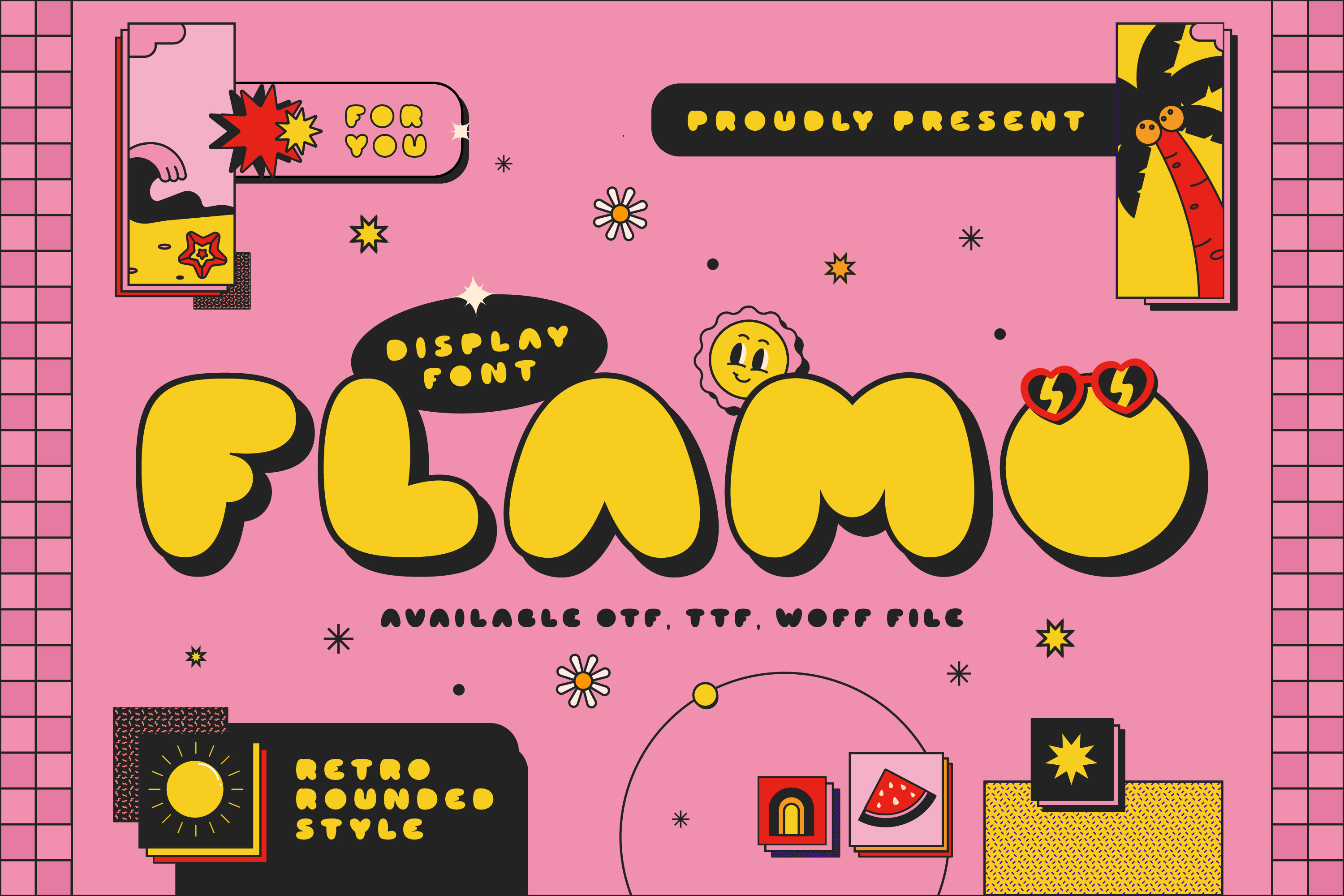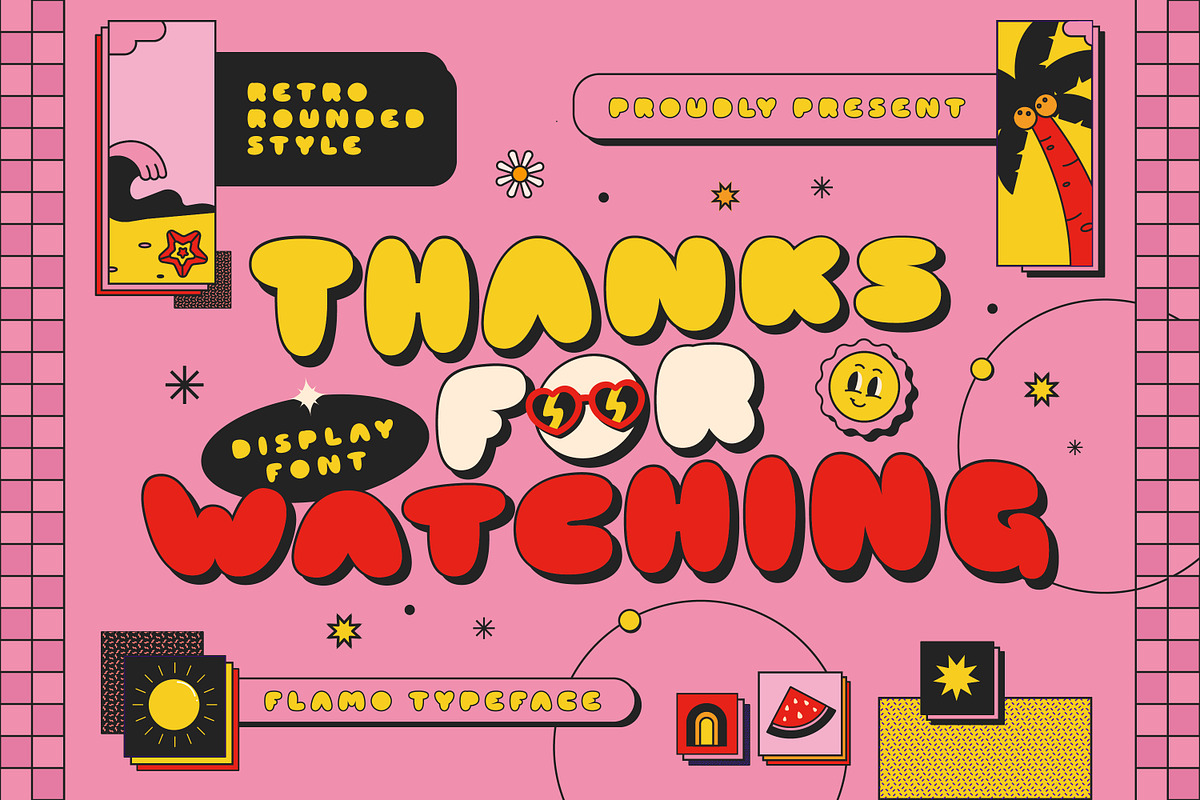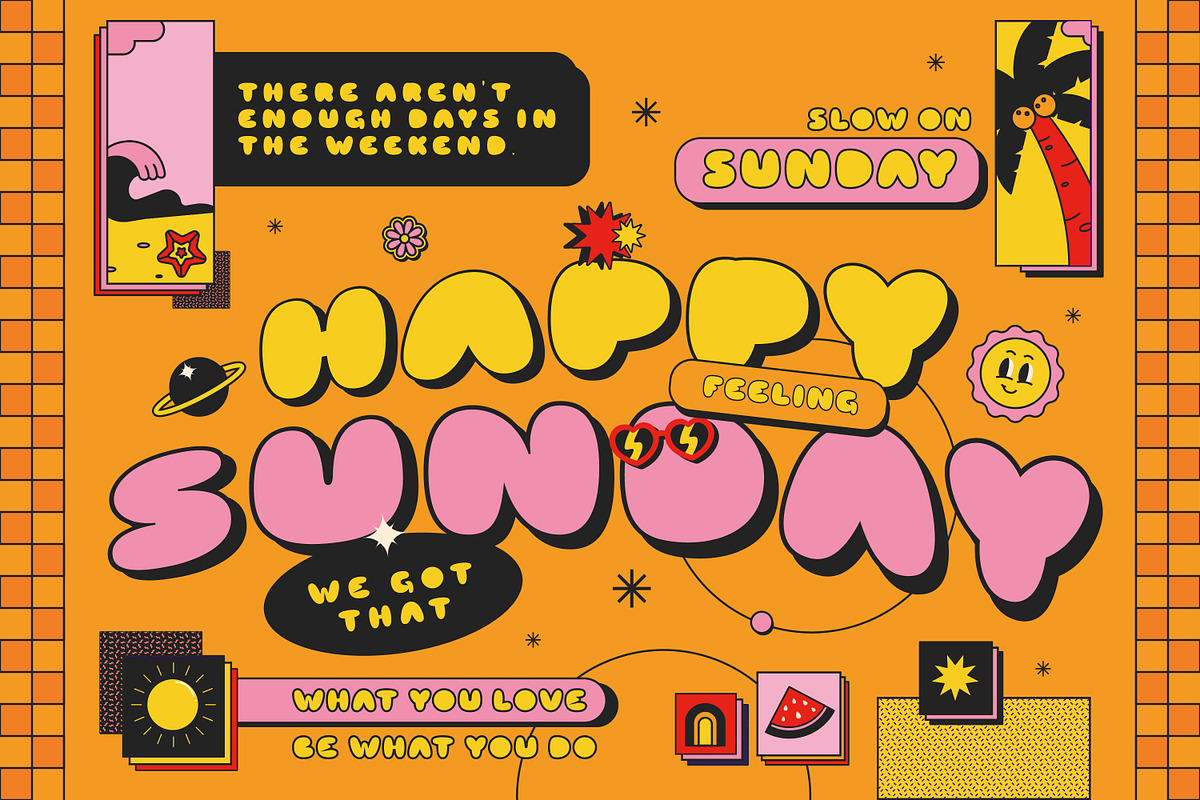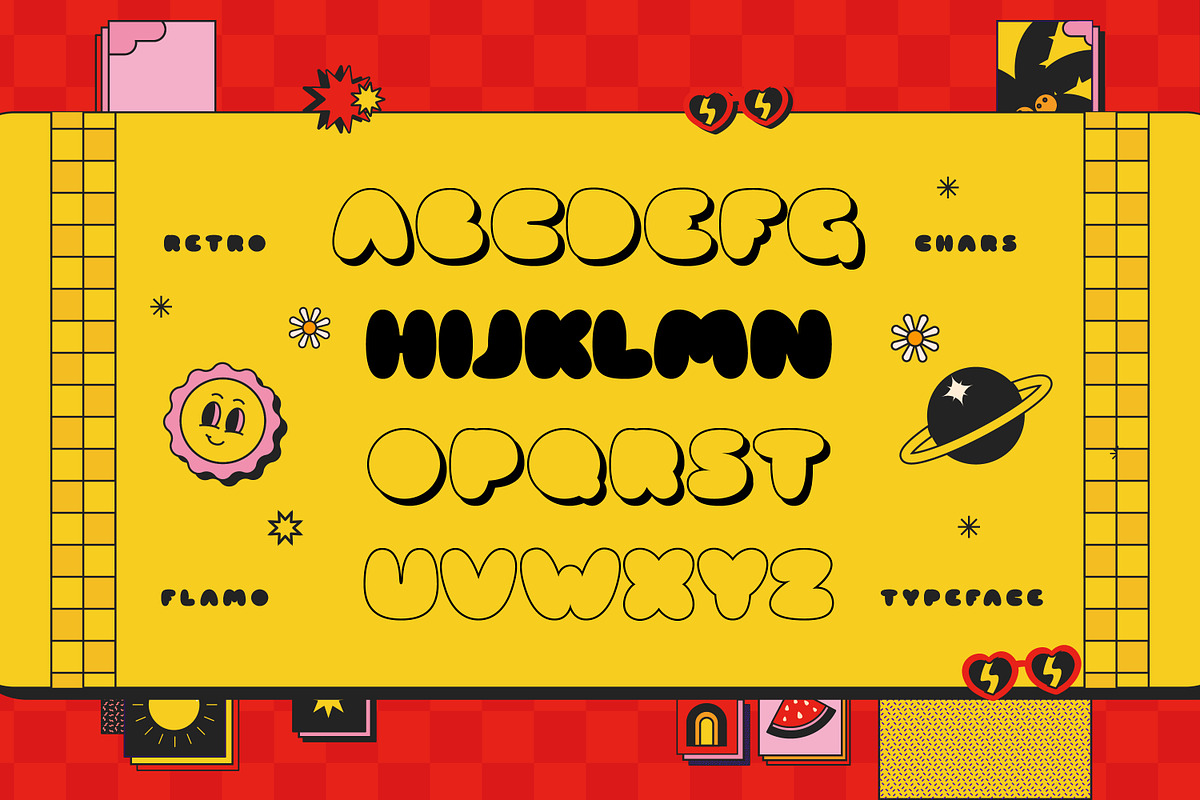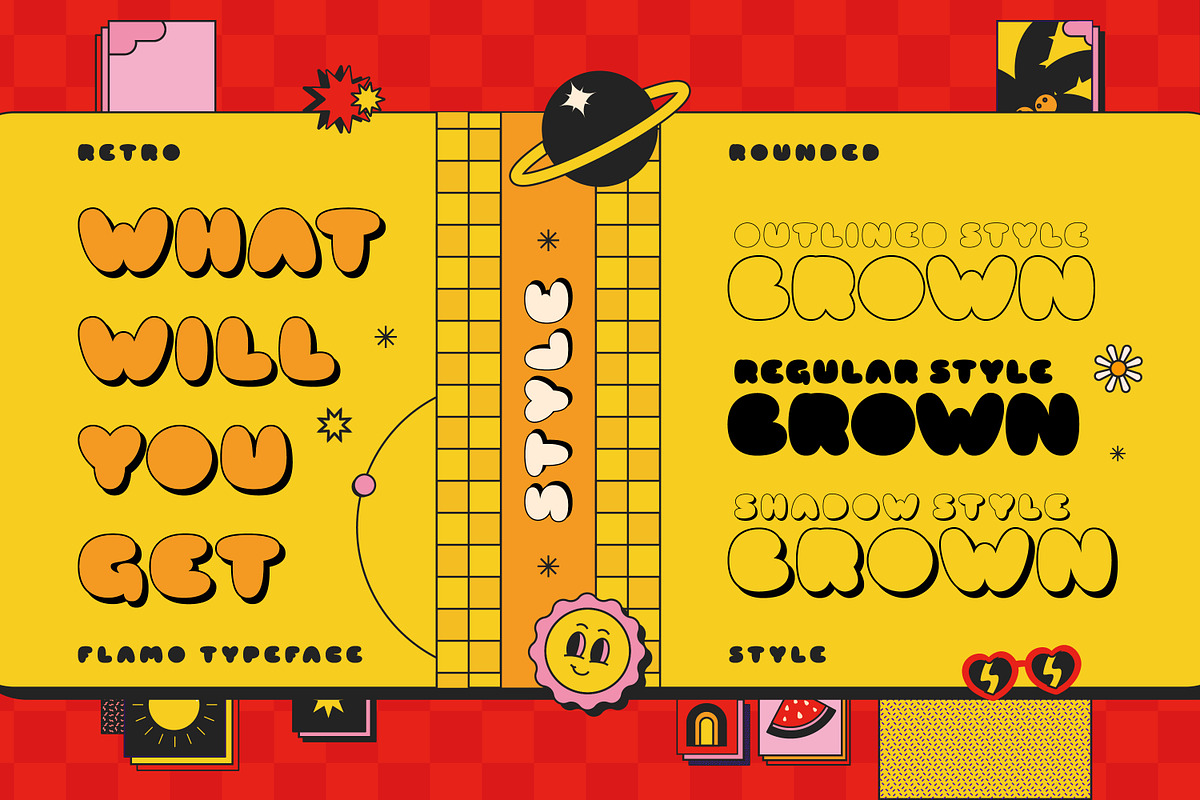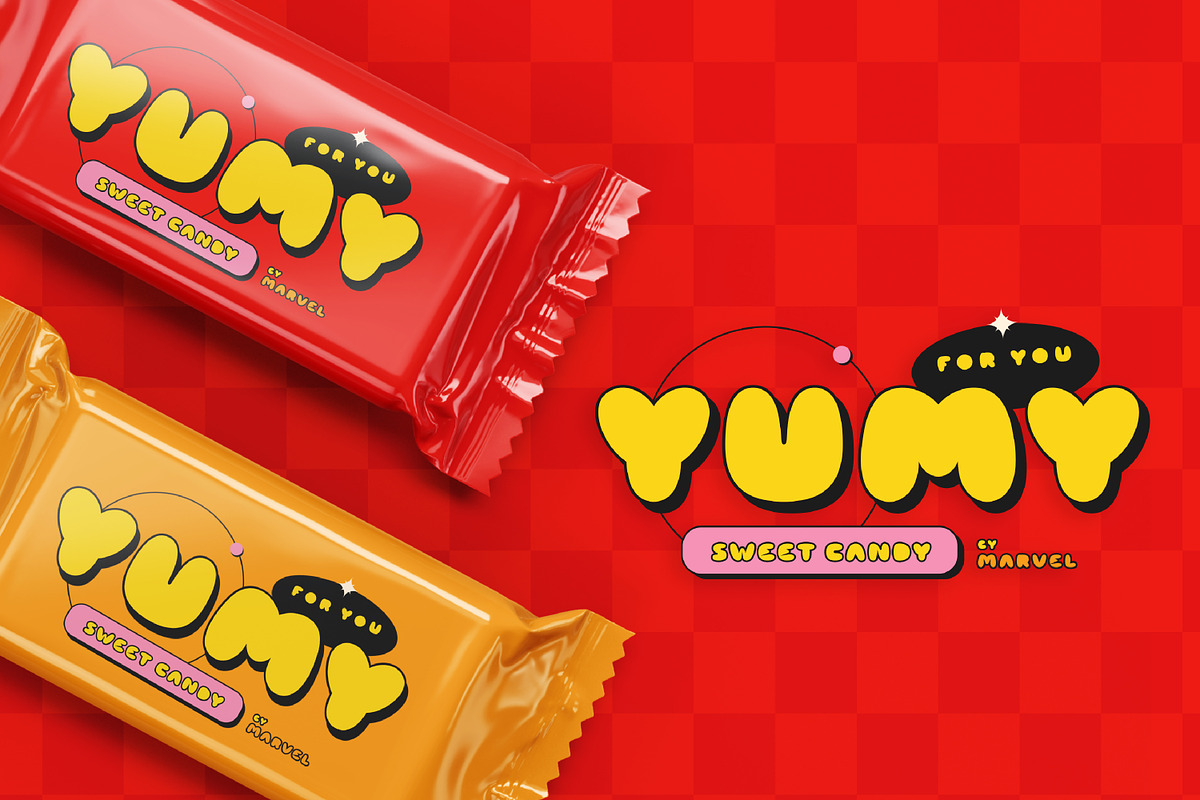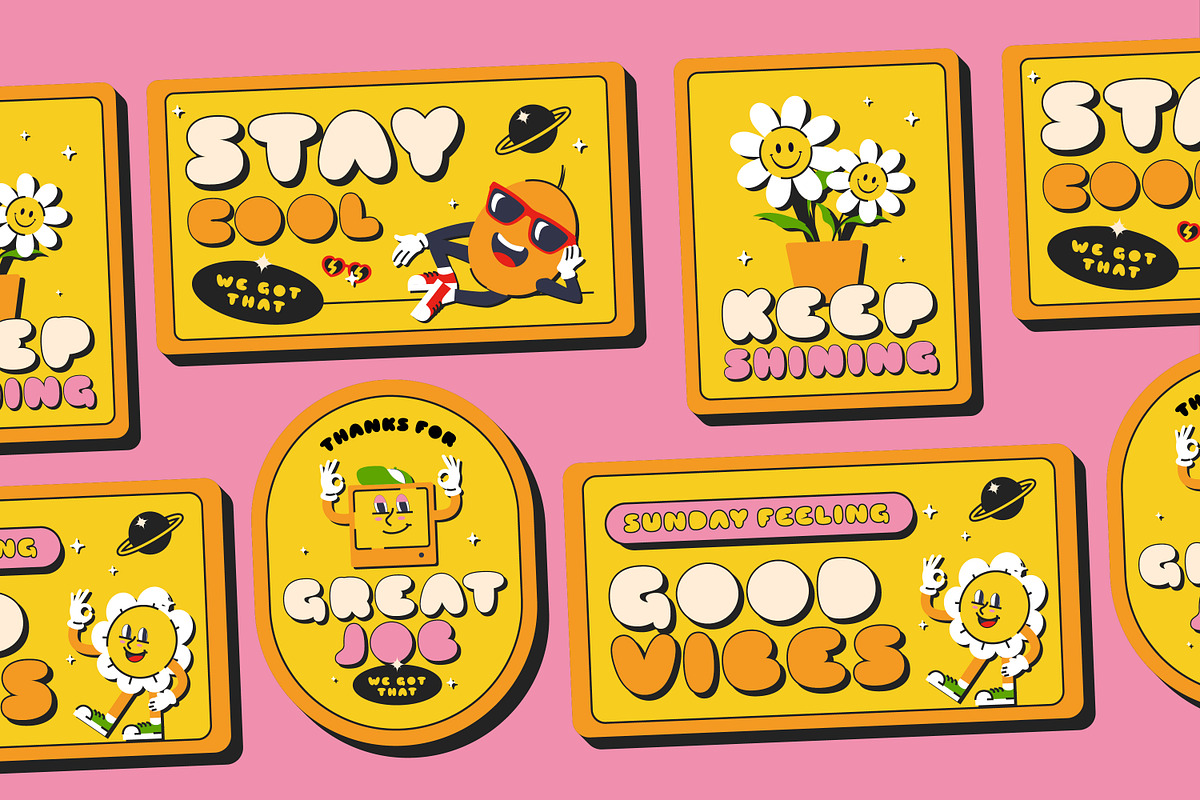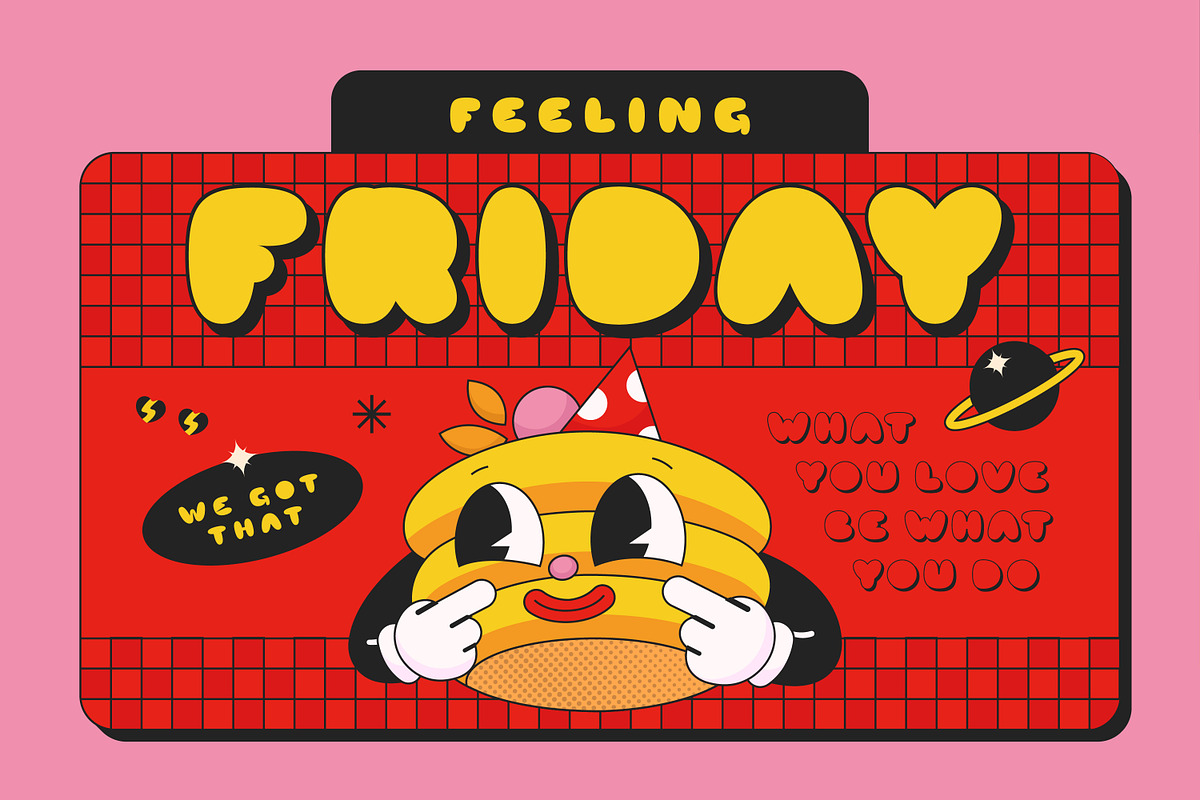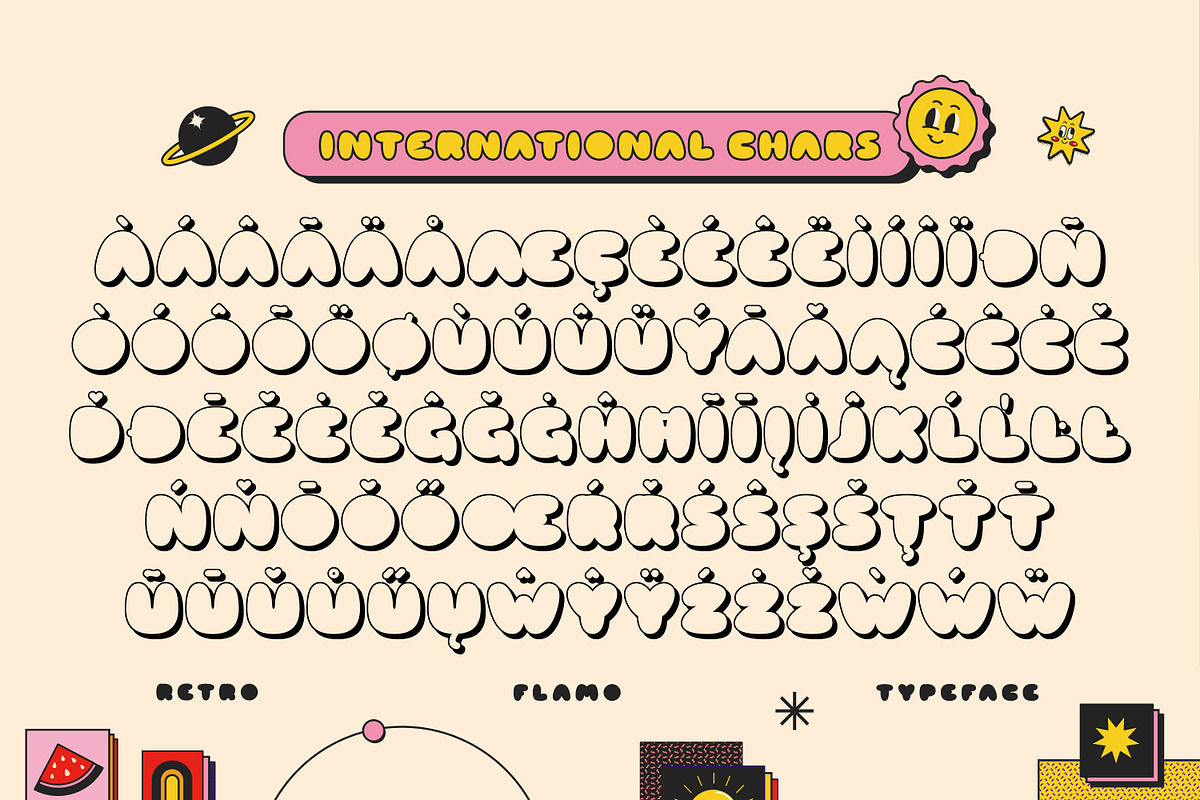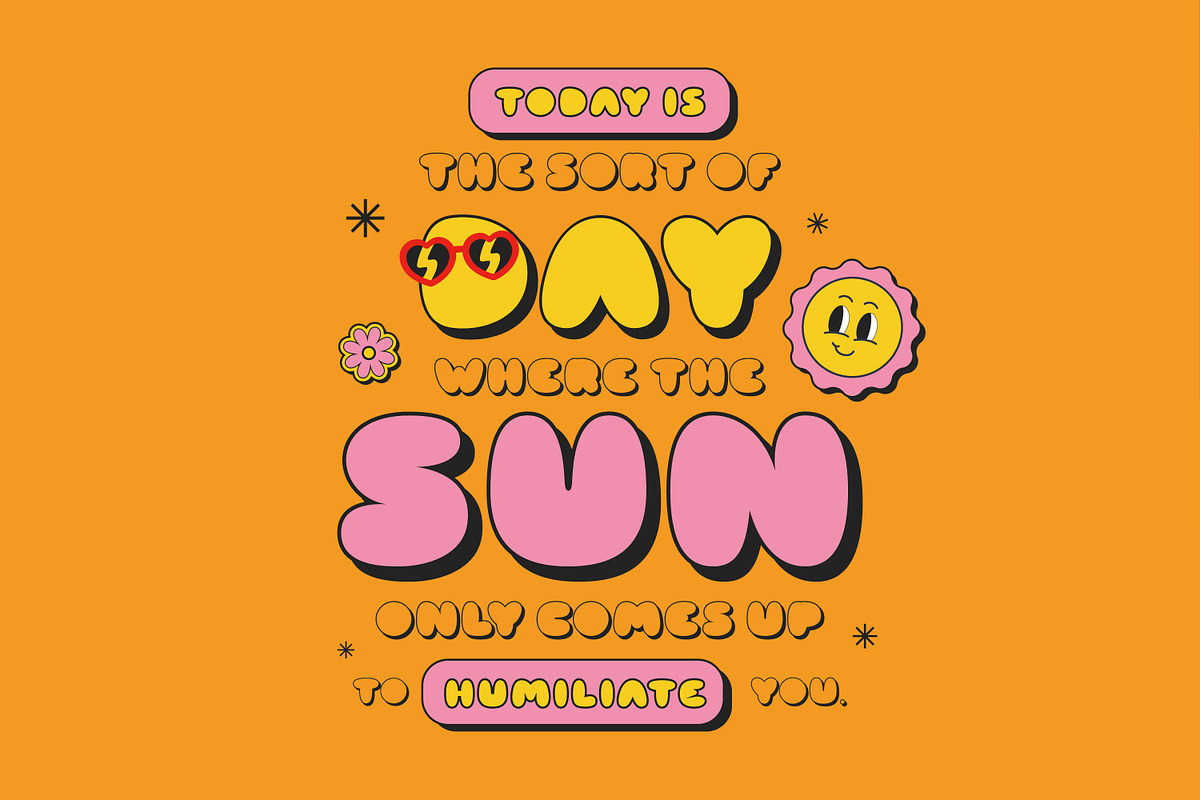
Flamo Display Font
Flamo is an extremely bold and nicely-rounded display font, perfect for any text that needs to stand out and impress! Use it on posters, banners, flyers, book covers, or anything else.